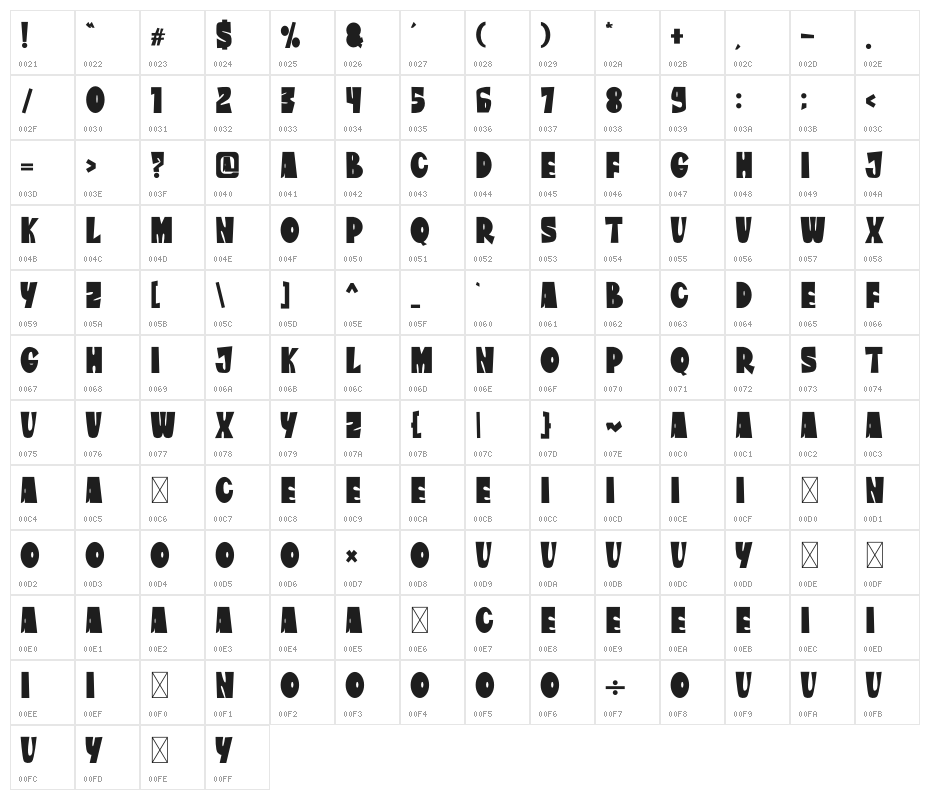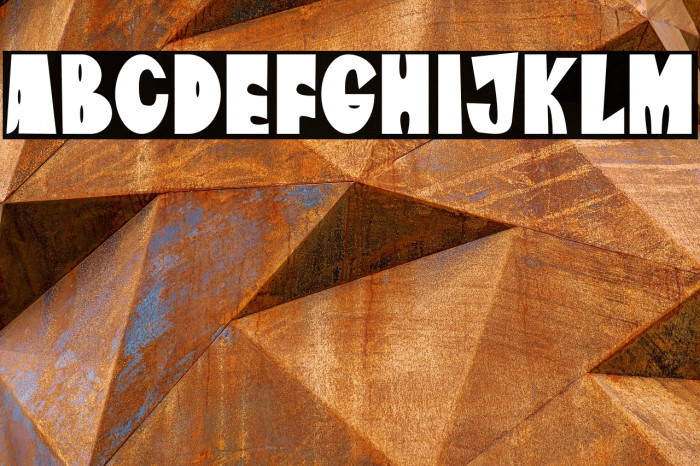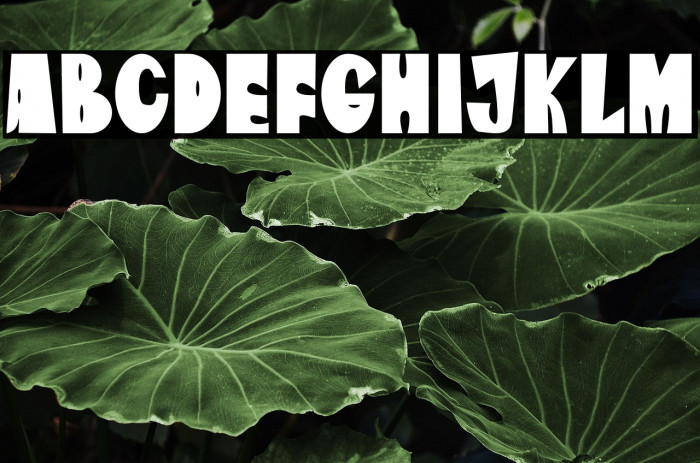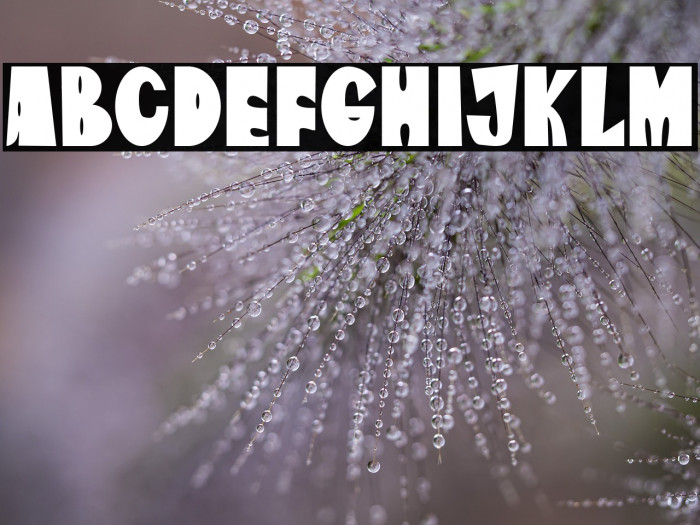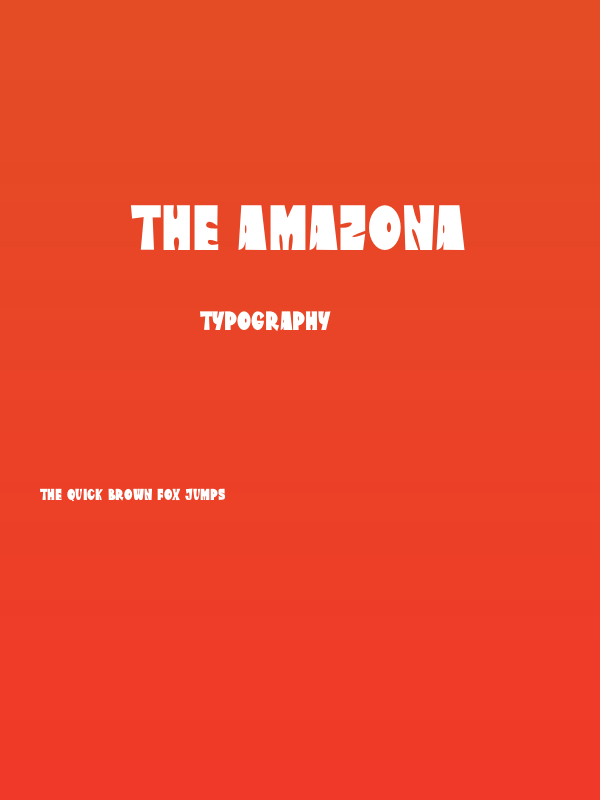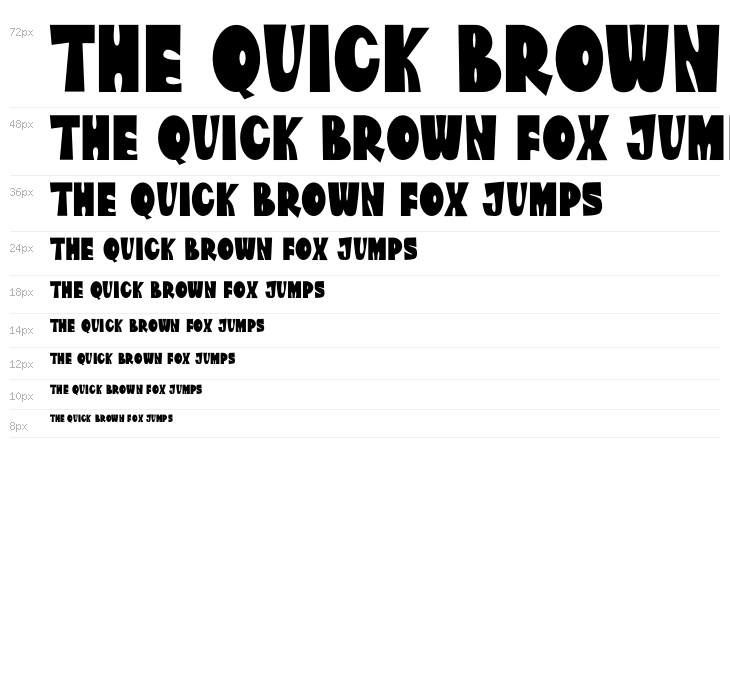
The Amazona Font
The Amazona Description
This bold and playful font features a unique and dynamic style with exaggerated curves and angles. The characters are heavily stylized, with thick strokes and a slightly irregular shape that gives them a whimsical and energetic appearance. The font's design is reminiscent of comic book lettering, with a strong emphasis on boldness and visual impact. It is highly legible despite its decorative nature, making it suitable for eye-catching headlines and creative projects. The numbers and special characters maintain the same playful aesthetic, ensuring consistency across all elements.
| Overall Style | Playful, Energetic, Whimsical |
| Proposed Projects | Perfect for comic book titles, children's book covers, playful branding, and posters. |